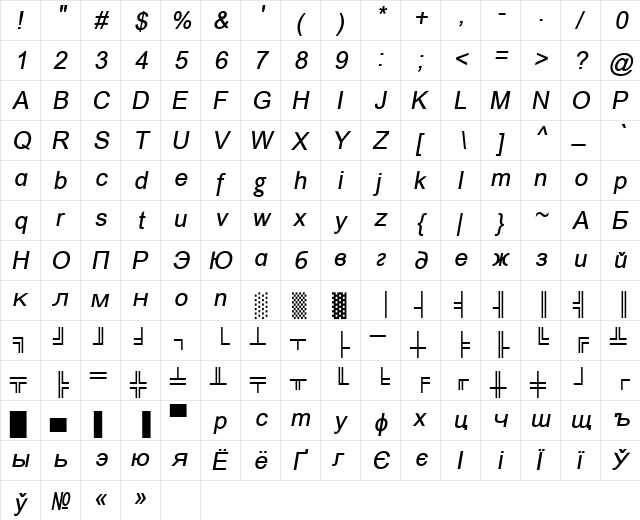
ER Univers 866 Italic
Design Context for ER Univers 866 Typeface
ER Univers 866 is a composed and adaptable typeface that performs quietly and consistently across a wide range of design contexts. Its italic angle brings a sense of urgency and motion to the letterforms.
Pro Tip: Use ER Univers 866 for emphasis, pull quotes, and subheadings where its slanted energy can add rhythm to the layout.